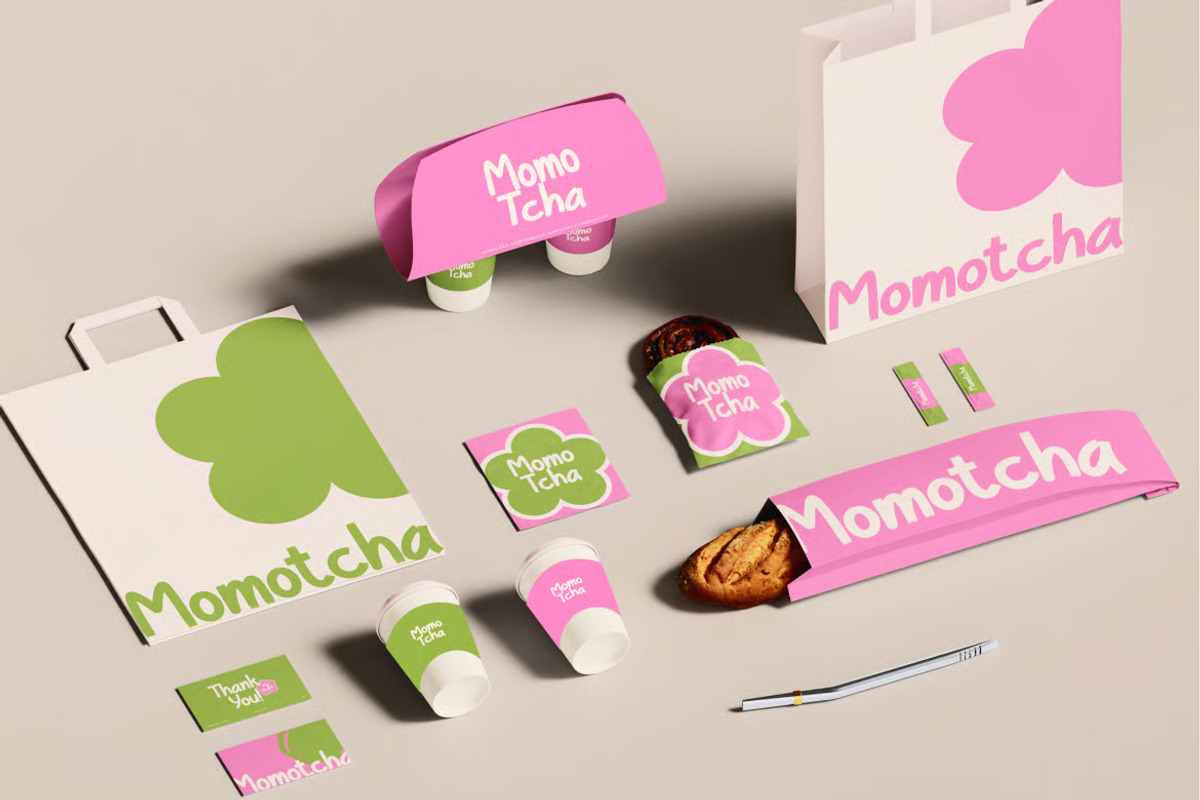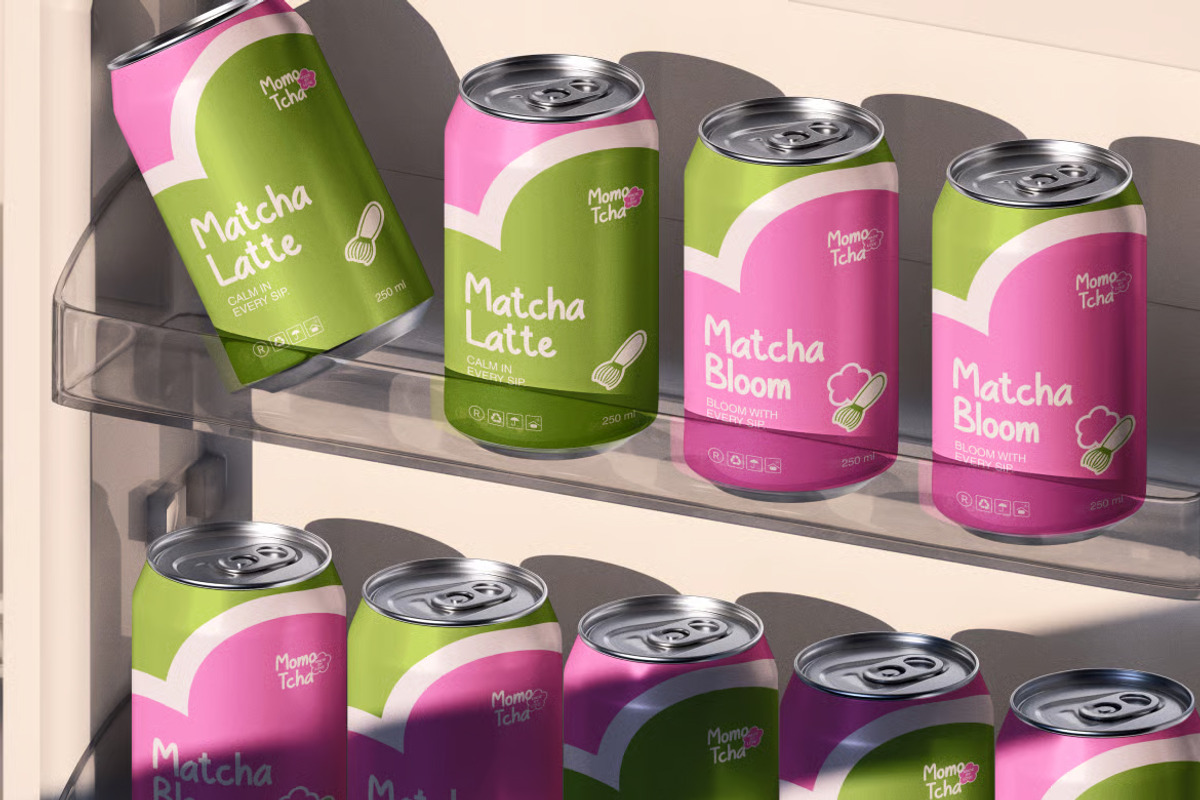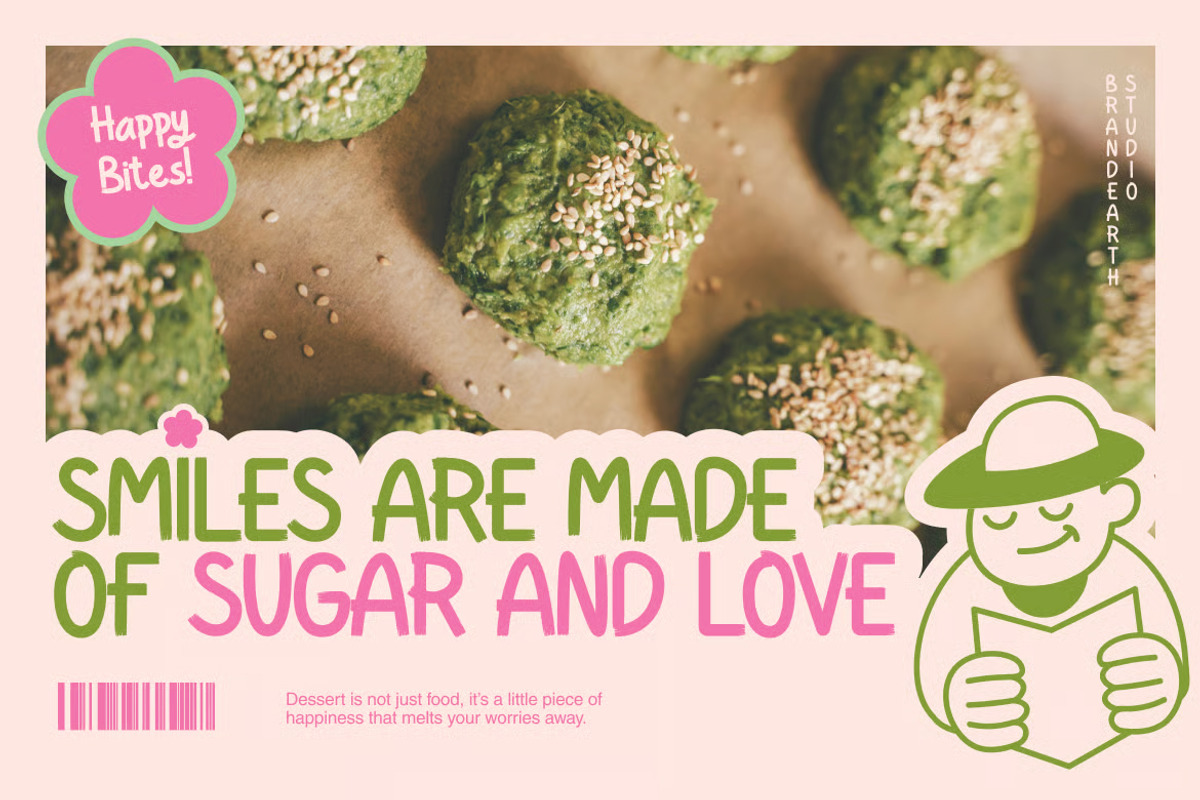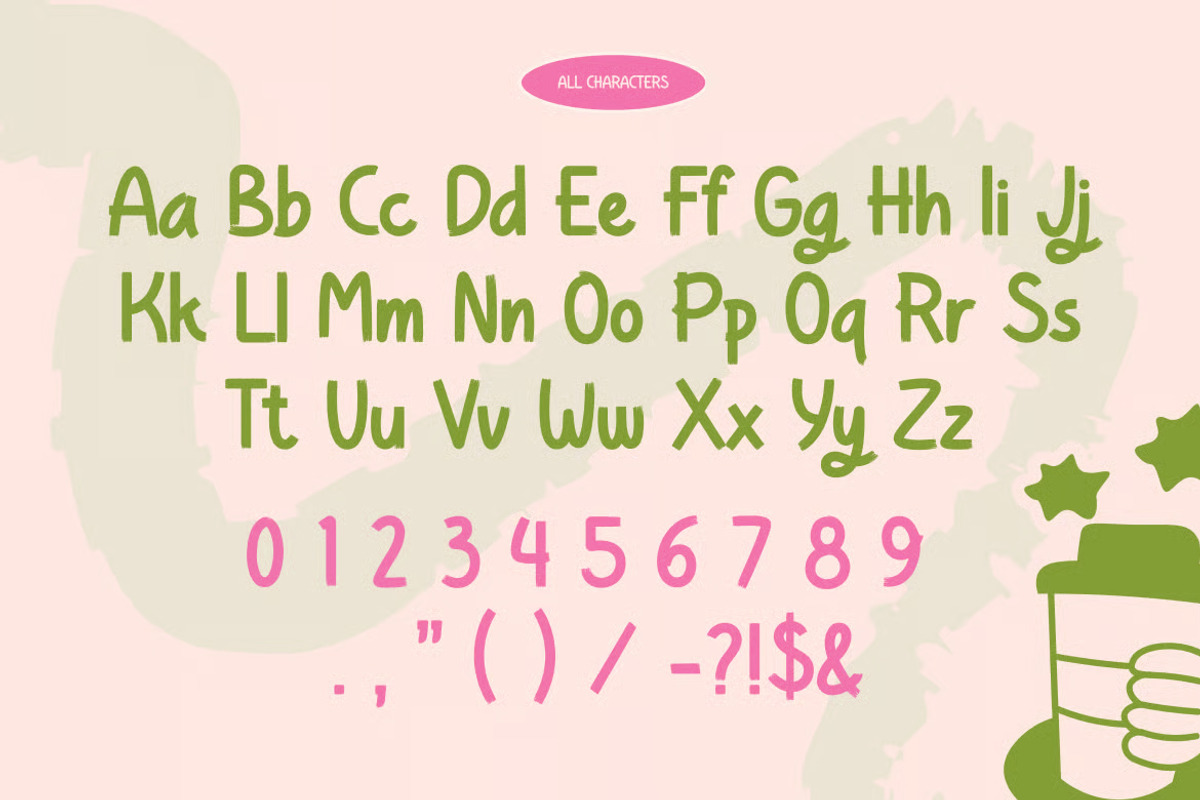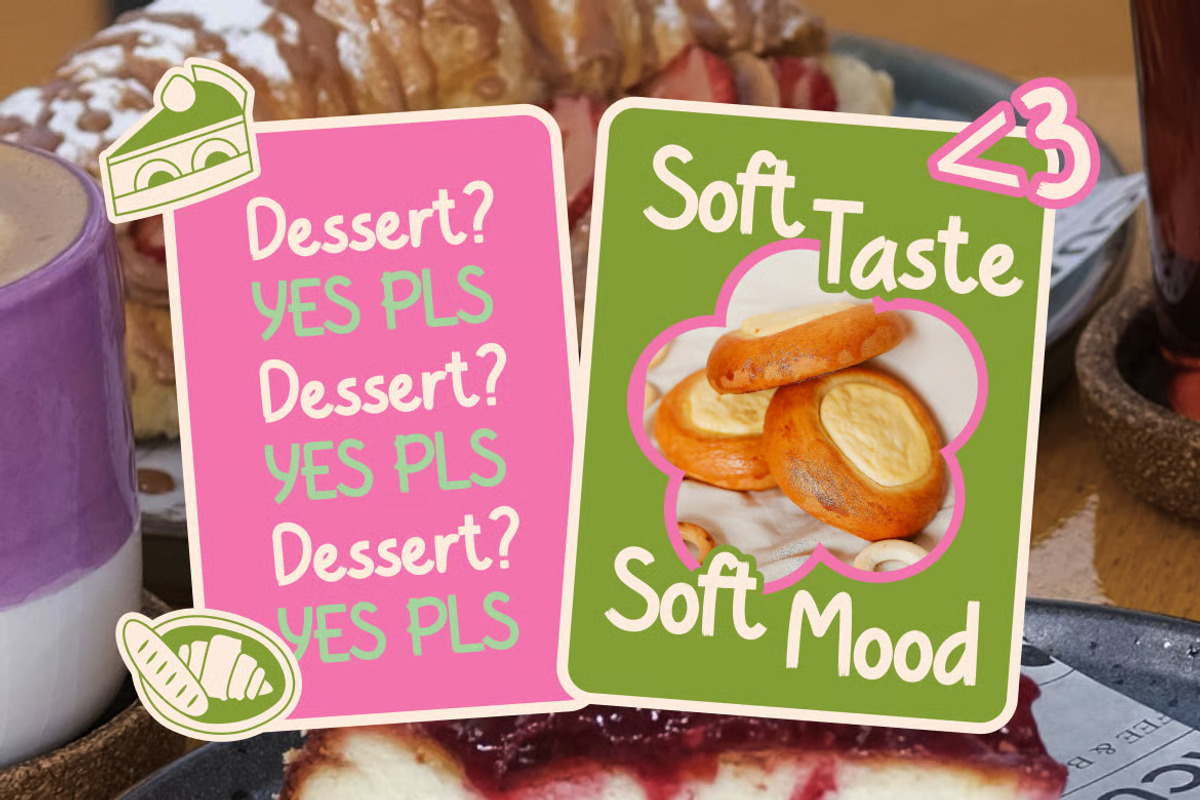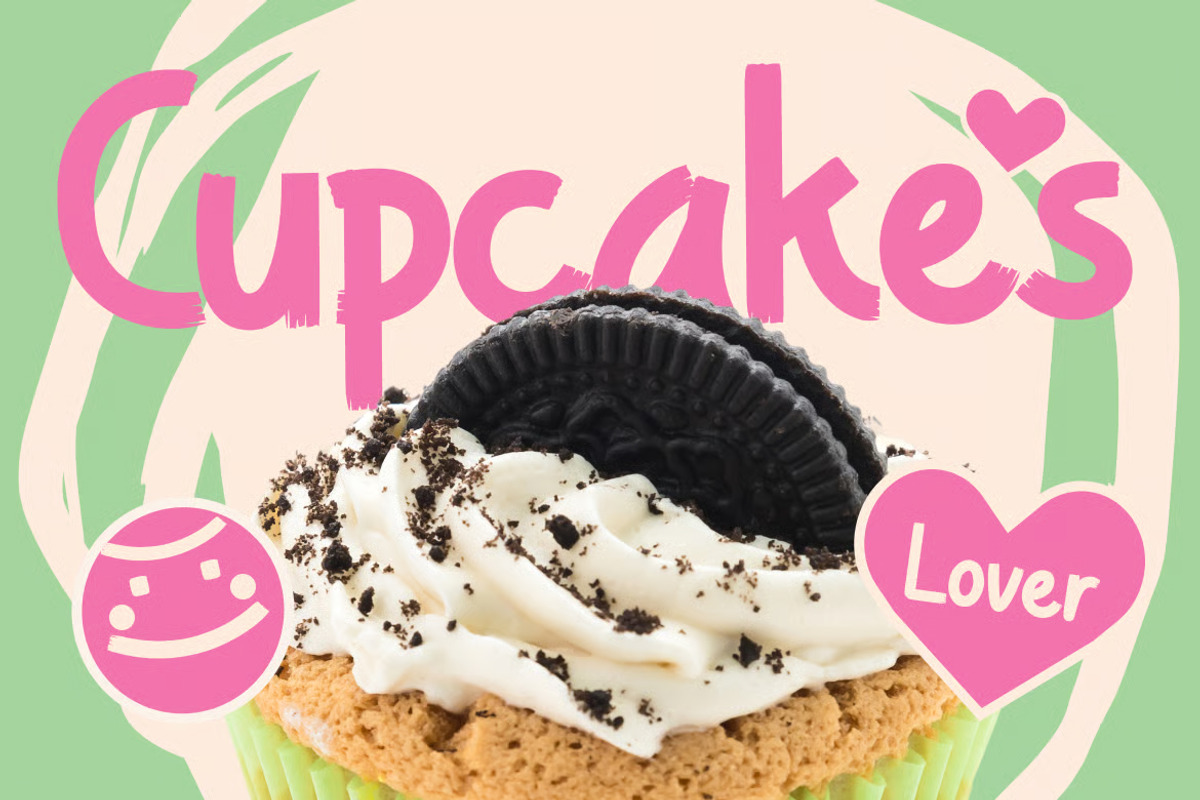
Biteyums – Playful Brush Script Font
Biteyums is a fun and cheerful handwritten font with a brush script style and playful personality. It features smooth curves, soft strokes, and charming irregularities that mimic natural handwriting, giving it a warm and inviting look. Its energy is bold, bouncy, and full of character—perfect for brands that want to feel friendly, approachable, and full of life.
Designed for food branding, packaging, cute logos, and children's products, Biteyums adds a handmade flavor to any visual. The letterforms carry a natural, effortless rhythm with rounded shapes and textured brush strokes, giving every word a cheerful, hand-drawn charm. This font includes uppercase and lowercase letters, numbers, and punctuation—making it perfect for both digital and print use.
Whether you're designing café menus, product labels, social media quotes, or bakery signage, Biteyums brings friendly energy to every project. With its playful curves and joyful personality, it bridges the gap between fun and handmade—adding warmth and character to any design it touches.
Main Features
Ligatures & Alternate
Numeral & Punctuations